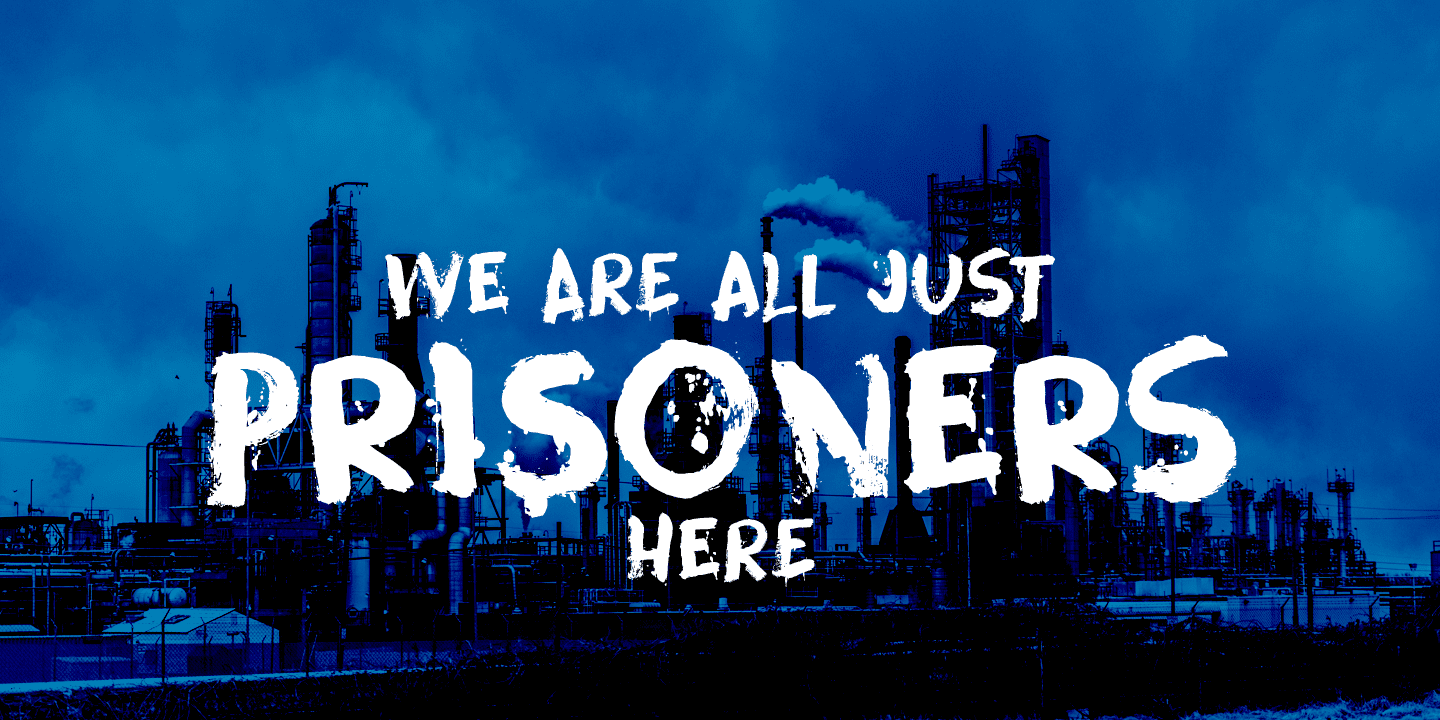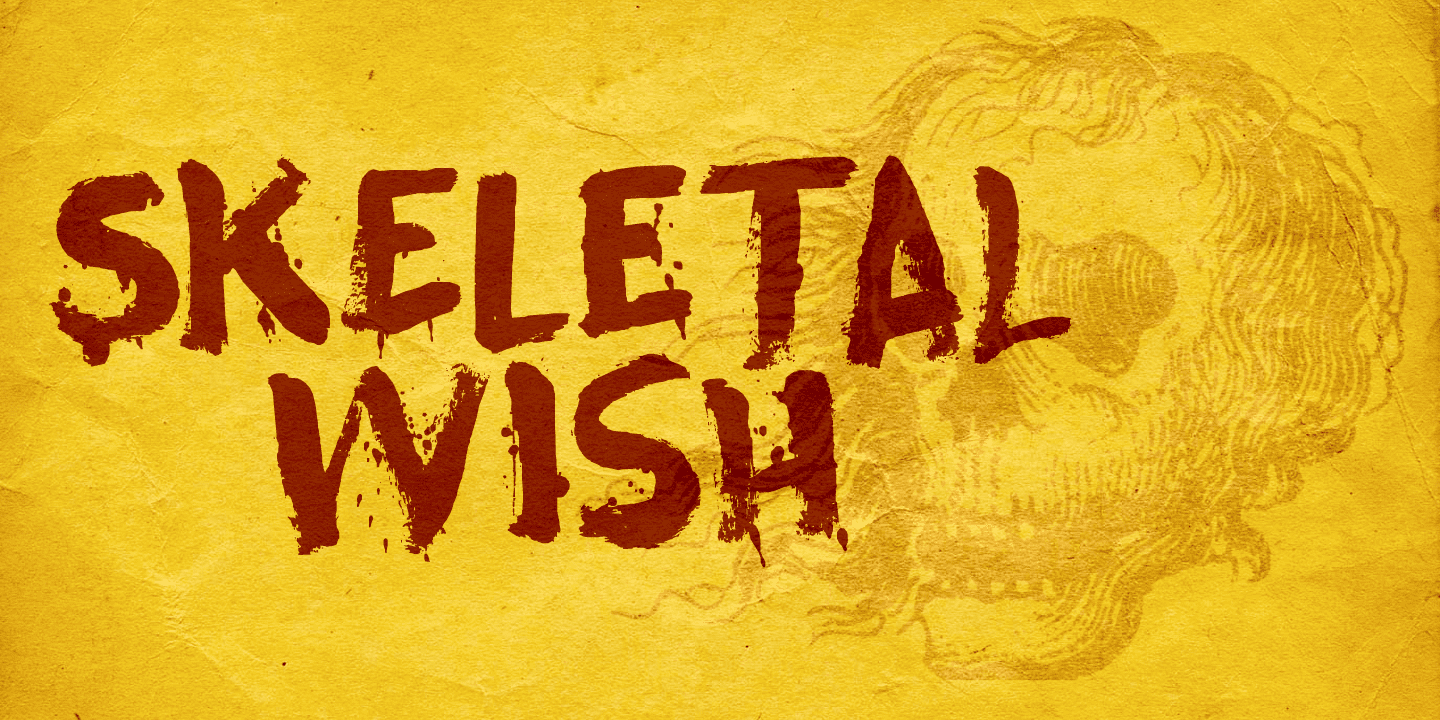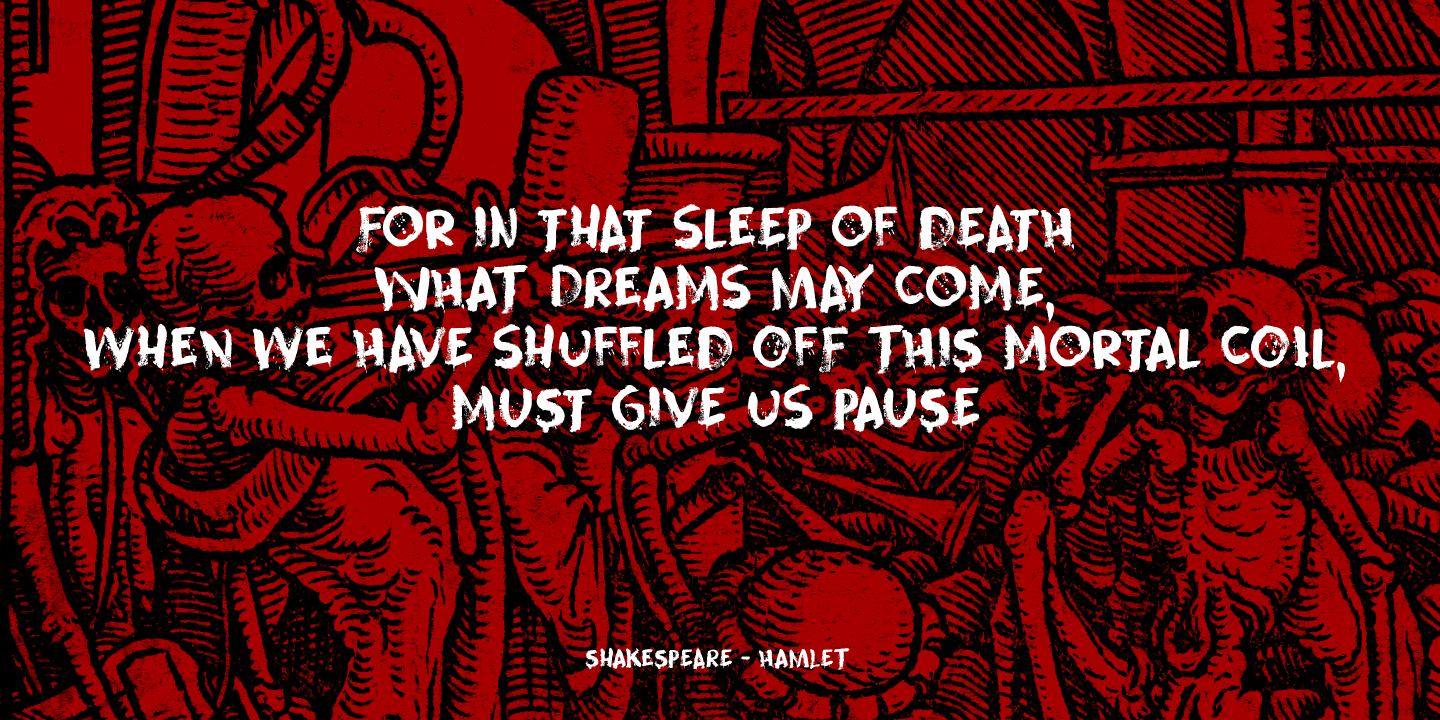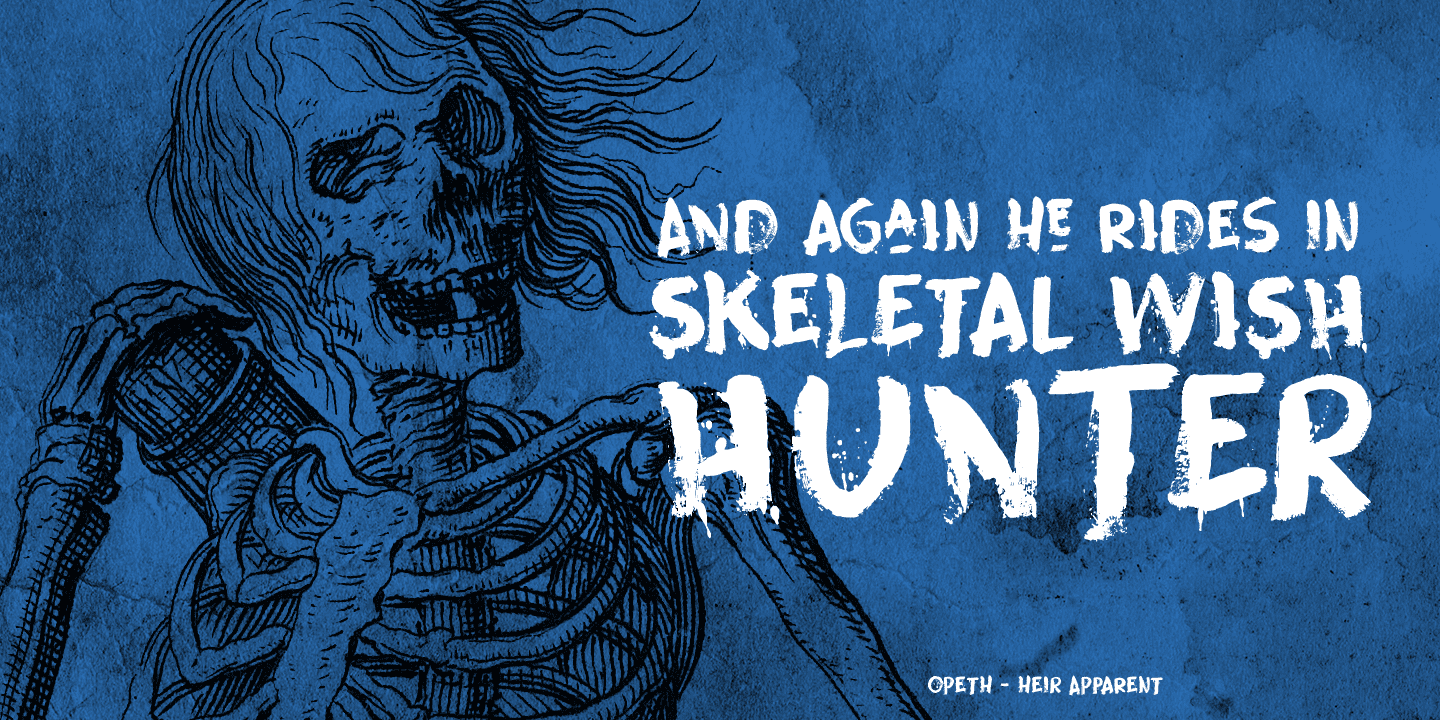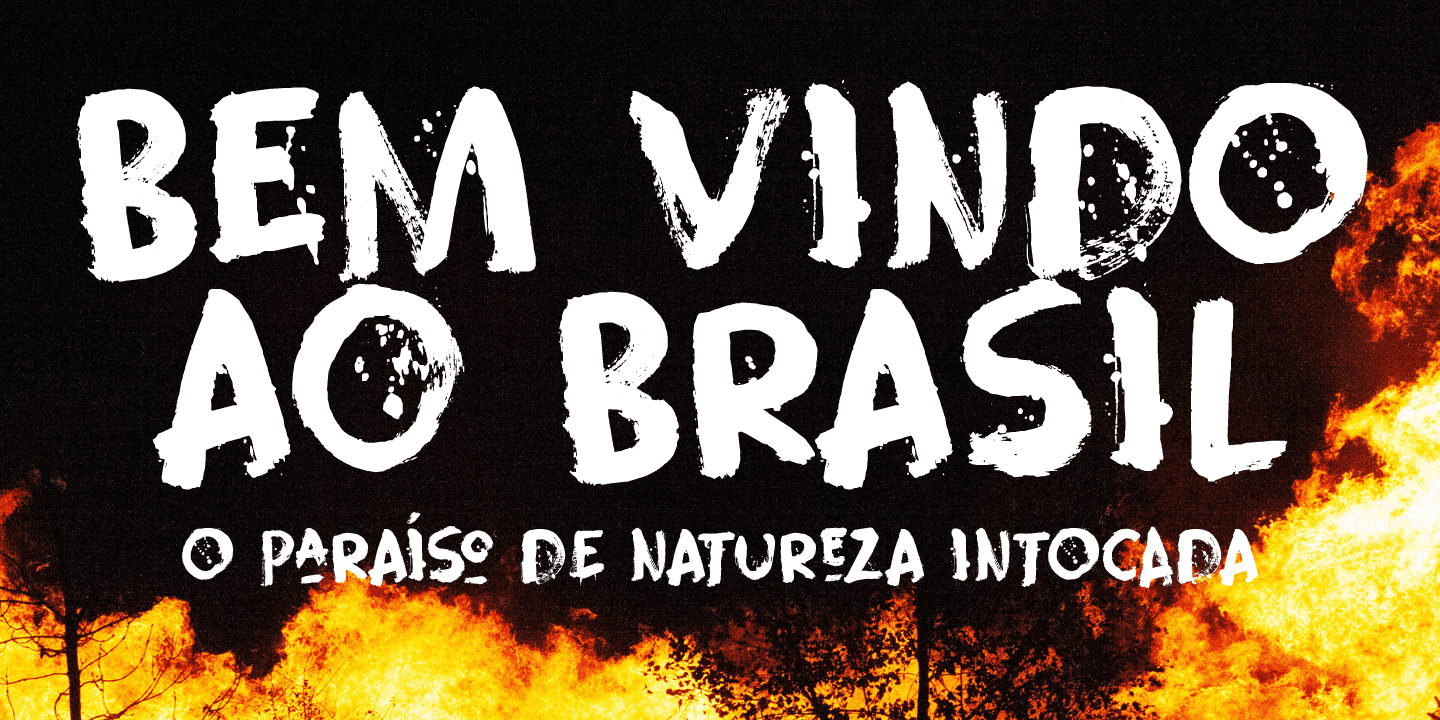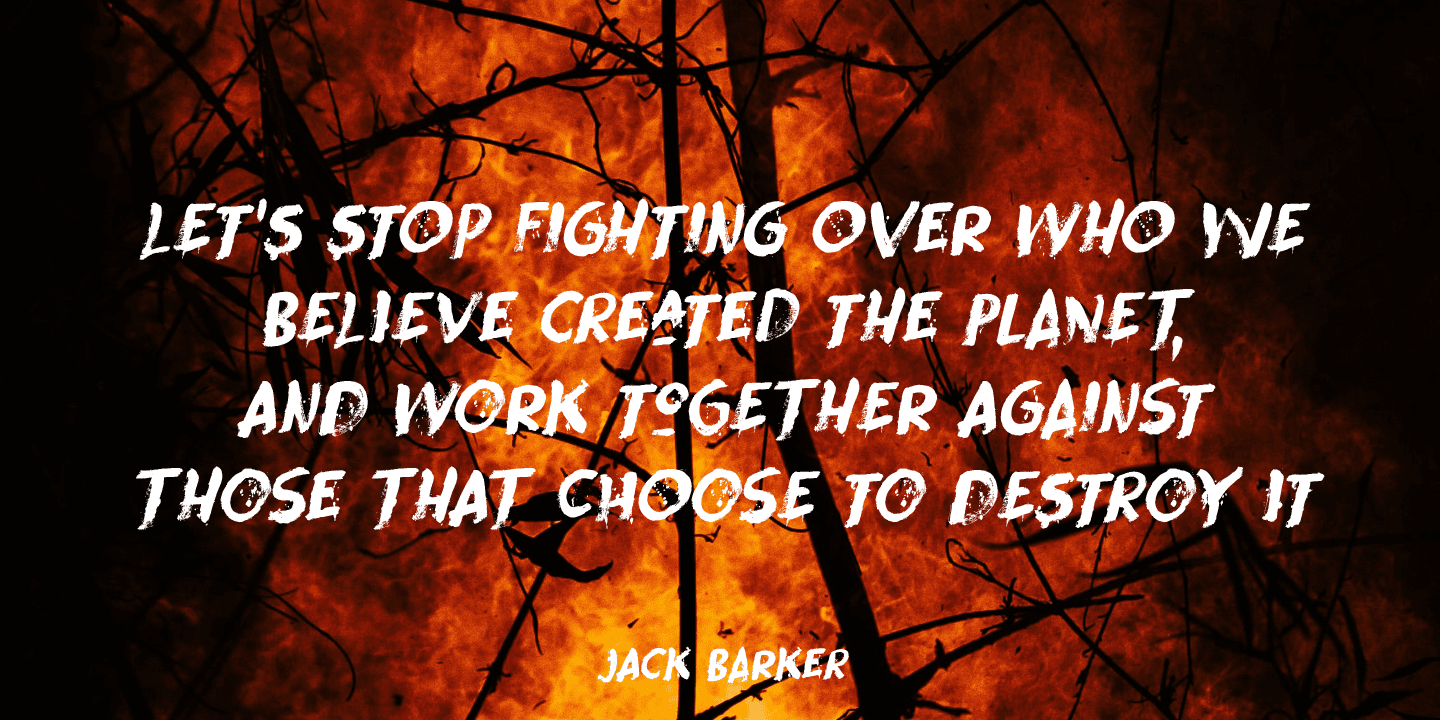
Skeletal Wish is a heavy and scary halloween font. It comes with blobs, splatter, gore and whatever else you may need for your designs. It won’t help save the Amazon rainforest, nor will it stop the flow of marine plastic, but you could use it to create a protest sign. After all, the change begins with you.